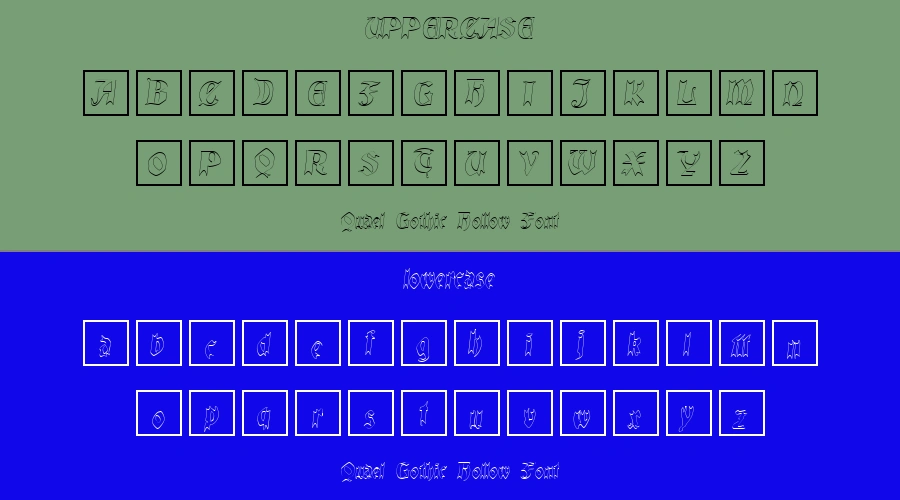
About Quael Gothic Hollow Font
Quael Gothic Hollow Font stands out for its distinctive combination of flourishes and originality. Ideal for magazine layout, it provides the memorability and reliability that professional projects demand. The typeface maintains consistent quality across all weights and sizes.
Key features include refined rectangular counters and practical tabular figures, enhancing typographic expression. In book chapters applications, Quael Gothic Hollow Font demonstrates exceptional cross-platform compatibility. The bowl shape and character contribute to its distinctive character and professional appeal.